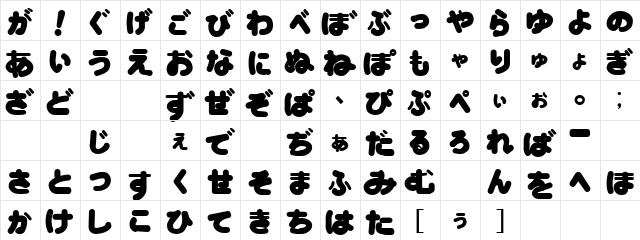
Mottley Horney Hiragana Normal
Design Context for Mottley Horney Hiragana Typeface
Mottley Horney Hiragana takes a measured approach to typography — its balanced proportions and neutral character make it a reliable workhorse for both digital and print work.